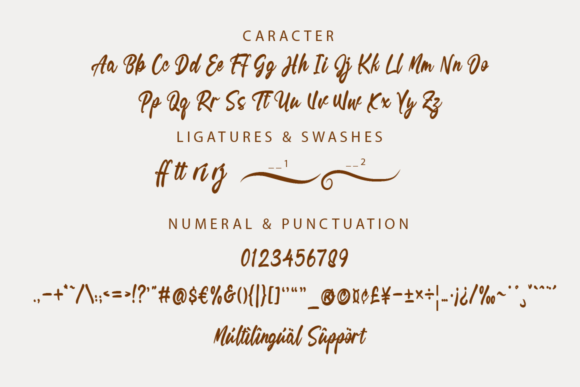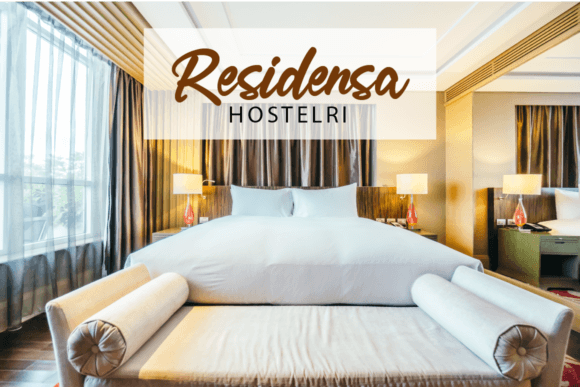
Shandrina Font
Designer: Bellinghamtype
Shandrina Font is handwritten script font. This font would be perfect for photography, watermarks, social media posts, advertisements, logos & branding, invitations, product design, labels, stationery, wedding designs, product packaging, special events, and other projects.